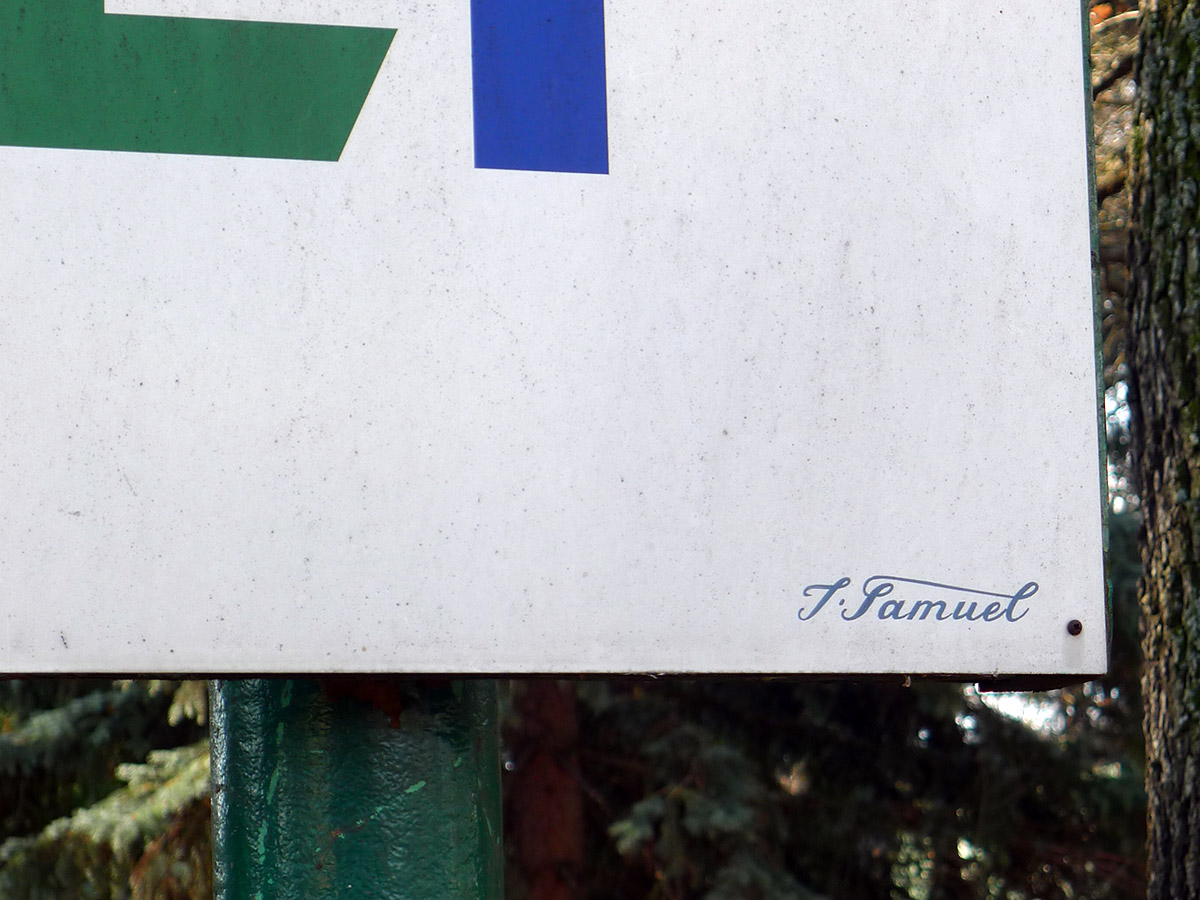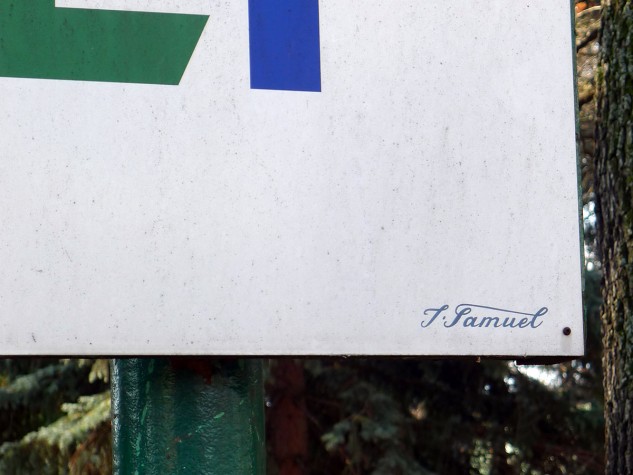
Oldschool sign
When wandering through 'Böhmischer Prater', an old amusement park in the 10th district of Vienna, one can spot a lot of old, hand painted signs for various attractions. Some of these signs bear the small handwritten name "J. Samuel". Josef Samuel is one of the very last traditional viennese sign painters, managing a business founded by his great-grandfather.